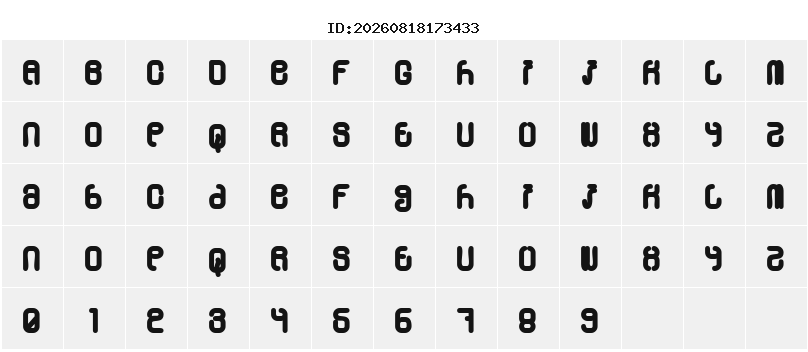
Skylab 600 Preview
• Font Name: Skylab 600
• Full Font Name: Skylab 600
About Skylab 600.ttf
Skylab 600.ttf is a modern, elegant sans-serif font designed for ultimate readability and visual harmony. Perfect for branding, headlines, web design, and print materials.